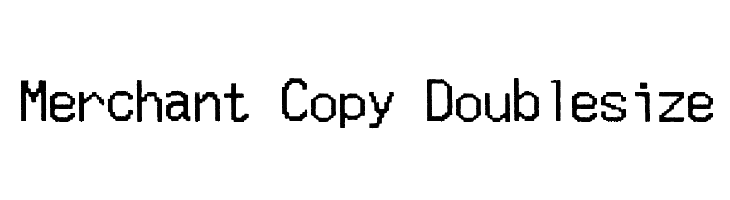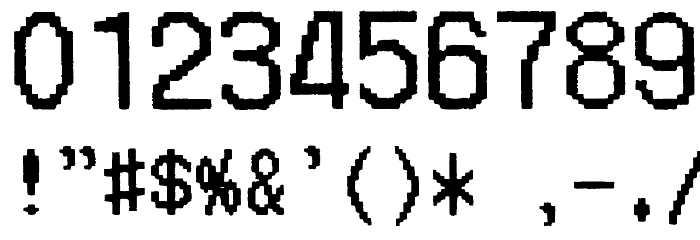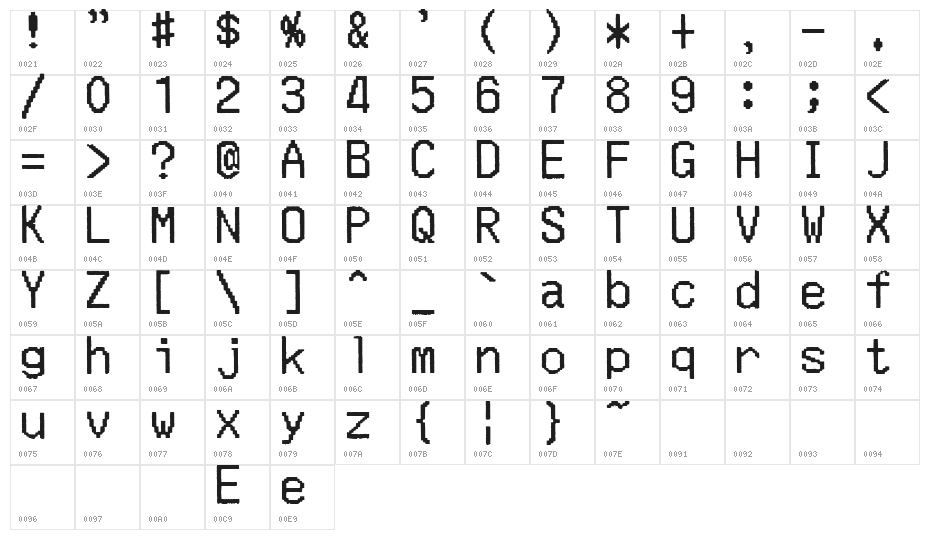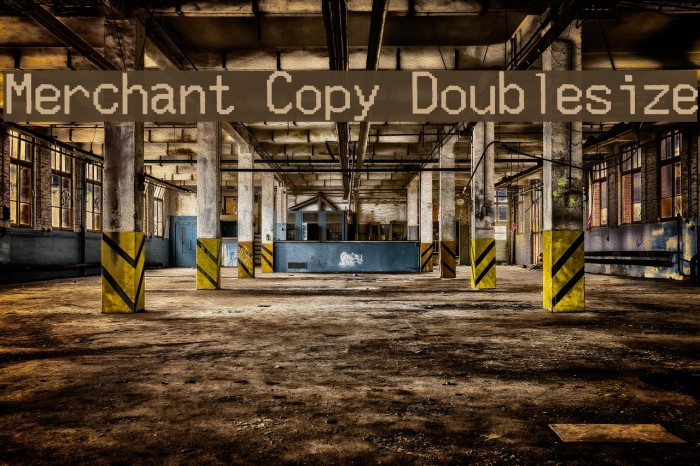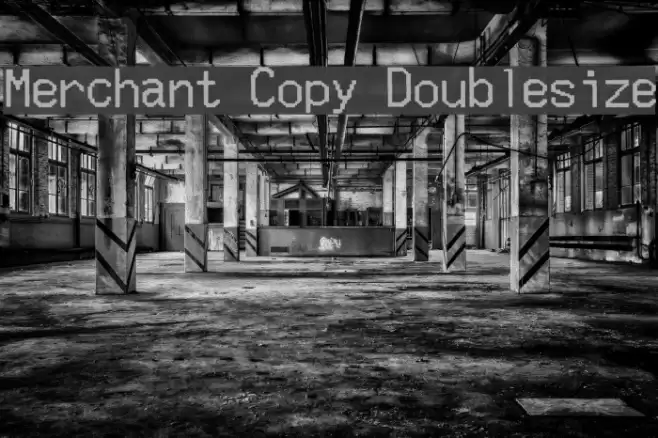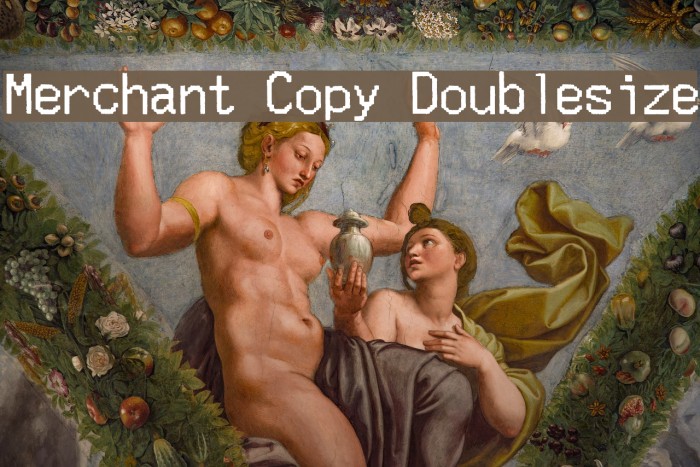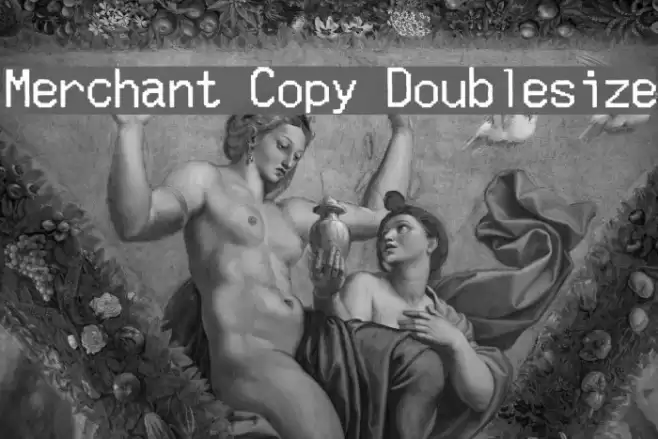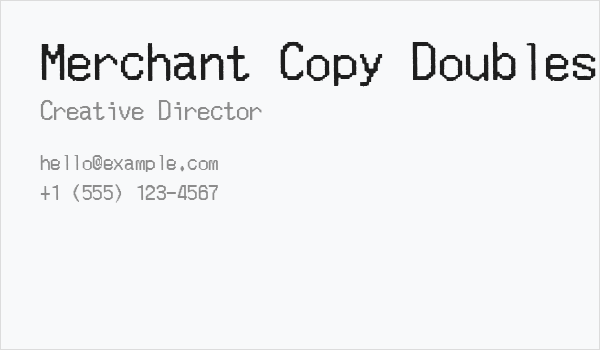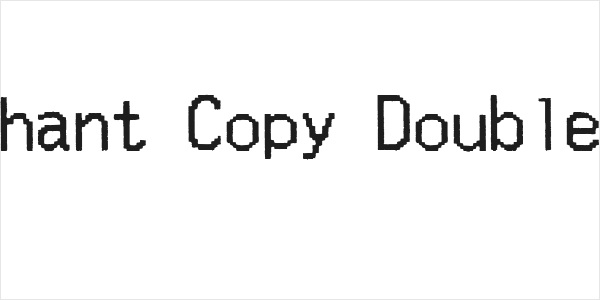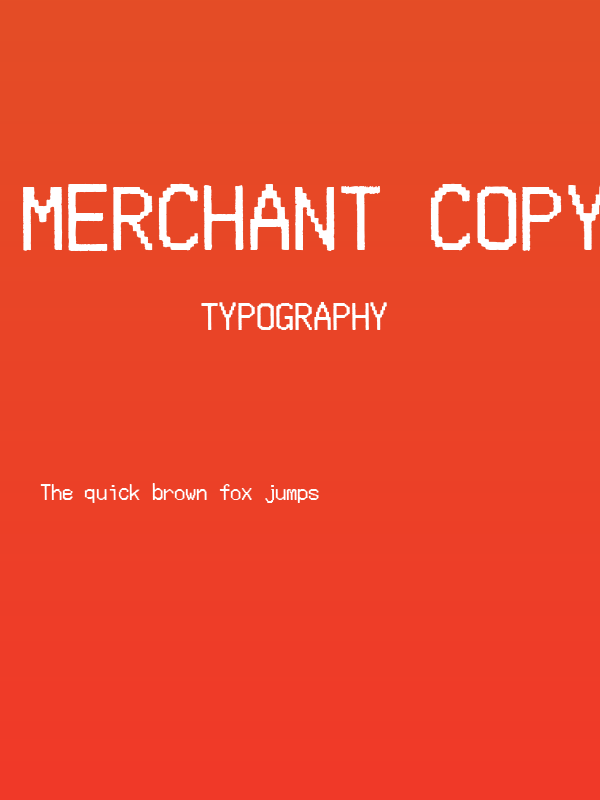
Merchant Copy Doublesize Font
Merchant Copy Doublesize Description
This font features a monospaced design with a distinctly digital and retro aesthetic. Each character is uniformly spaced, contributing to a clean and organized appearance. The letters have a pixelated, grid-like structure reminiscent of early computer displays or dot matrix printers. The uppercase and lowercase letters maintain a consistent height, while the numerals and special characters are clearly defined, enhancing readability. The overall look is utilitarian yet nostalgic, making it suitable for projects that require a vintage or tech-inspired feel.
| Use Case | Headlines, Coding, Digital Art |
| Proposed Projects | Ideal for coding environments, retro-themed designs, digital art projects, and any application requiring a vintage tech look. |